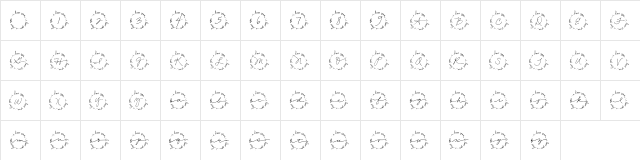
2Peas I Love You Regular
Design Context for 2Peas I Love You Typeface
2Peas I Love You is a composed and adaptable typeface that performs quietly and consistently across a wide range of design contexts.